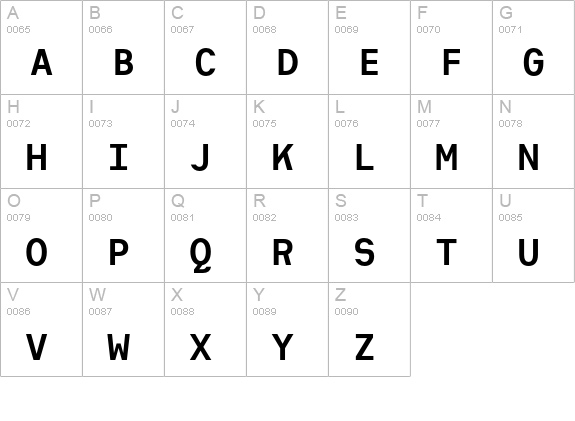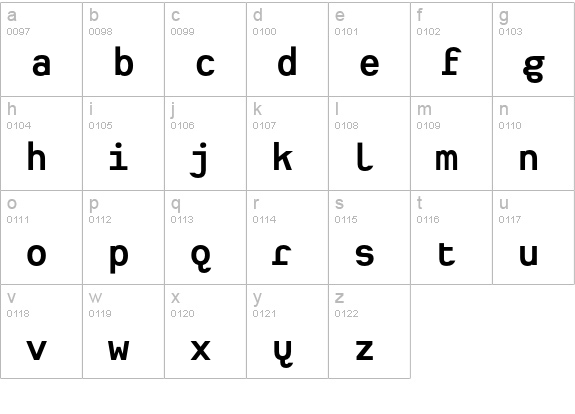
Heimat Mono Bold Font Details
Heimat Mono Bold is a strong, high-contrast variant in the Heimat typeface family \xE2\x80\x94 well suited to headlines, attention-grabbing titles, and strong calls-to-action.
Heimat Mono Bold font is a striking and versatile typeface that exudes a sense of strength and modernity. With its bold lines and clean design, this font is perfect for making a bold statement in any project. Whether you're designing a poster, logo, or website, Heimat Mono Bold font will help your text stand out and grab attention. What's even better is that Heimat Mono Bold font is available for free download at FontsMarket.com. This means you can easily access this high-quality font without having to spend a dime. So go ahead and elevate your designs with Heimat Mono Bold font today!